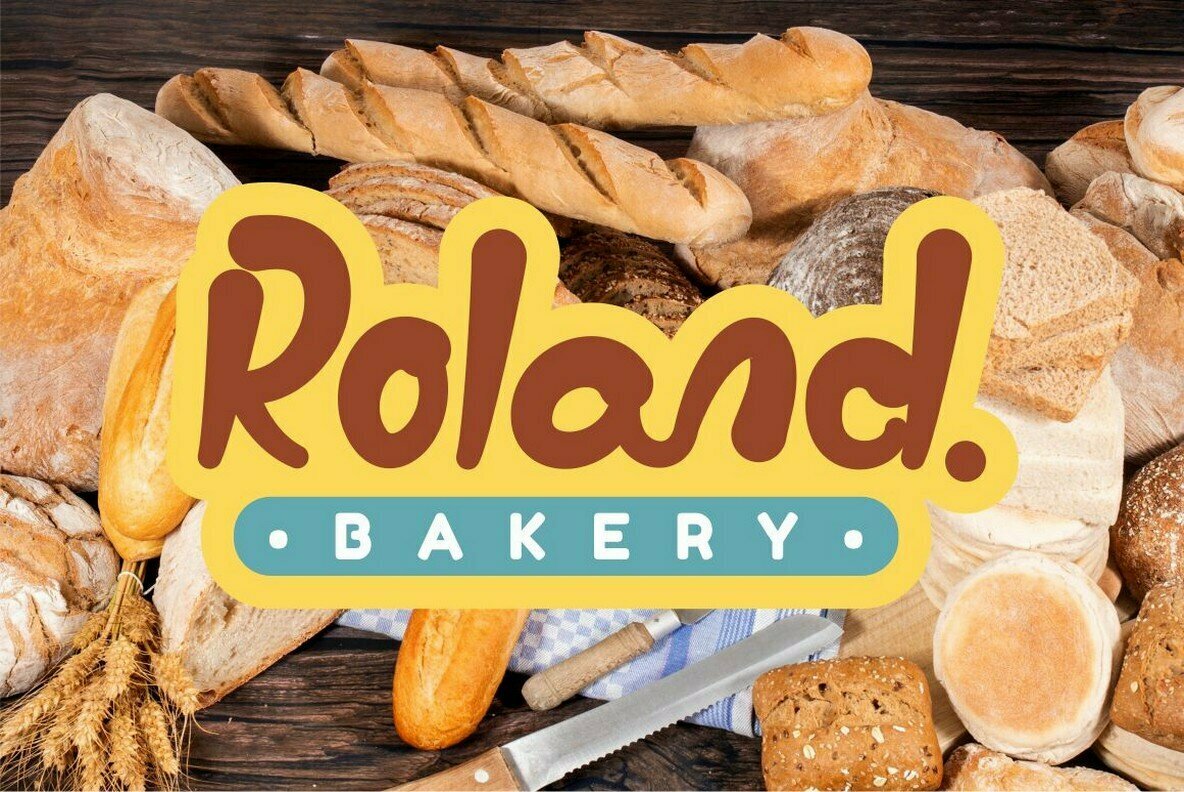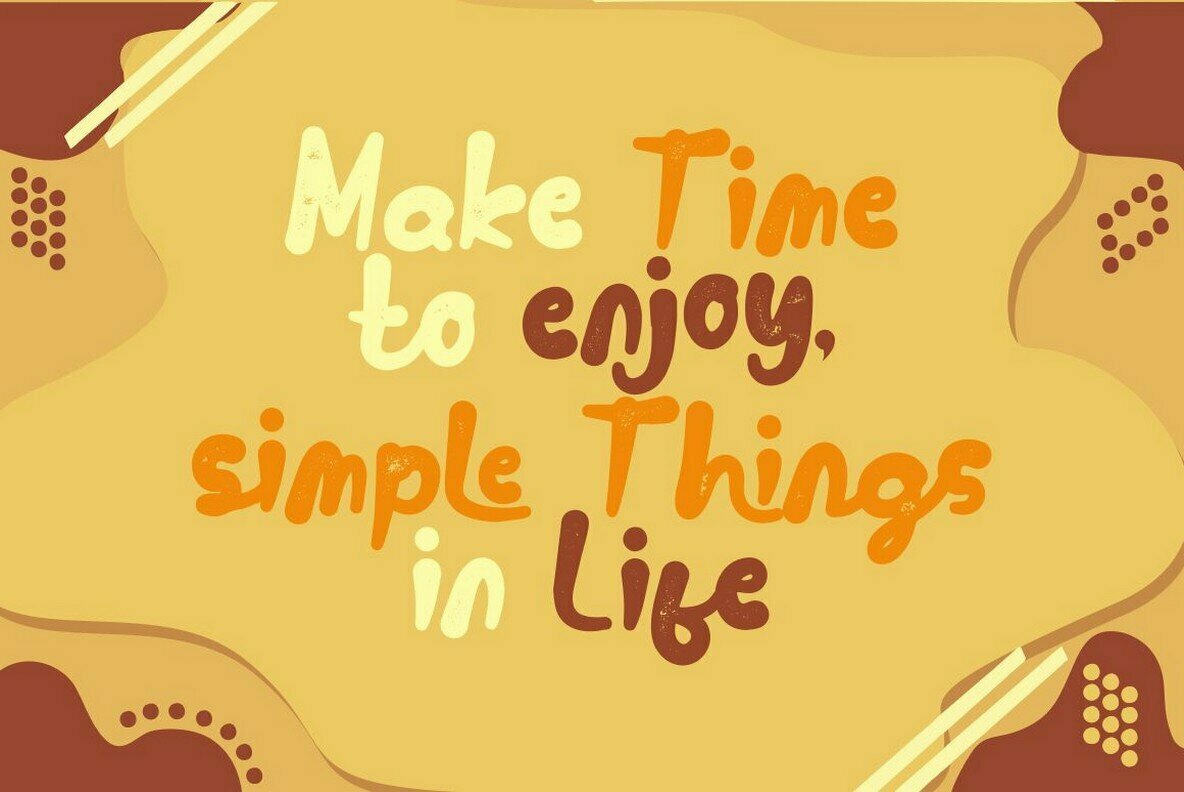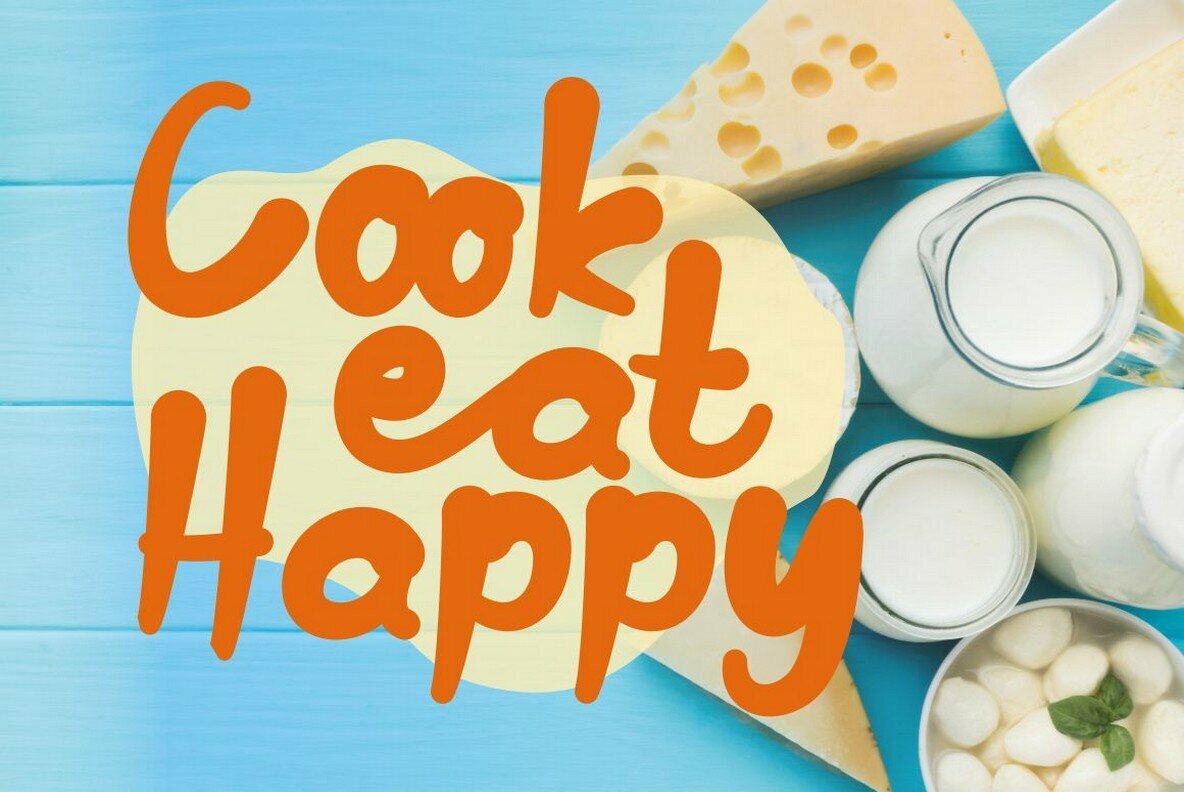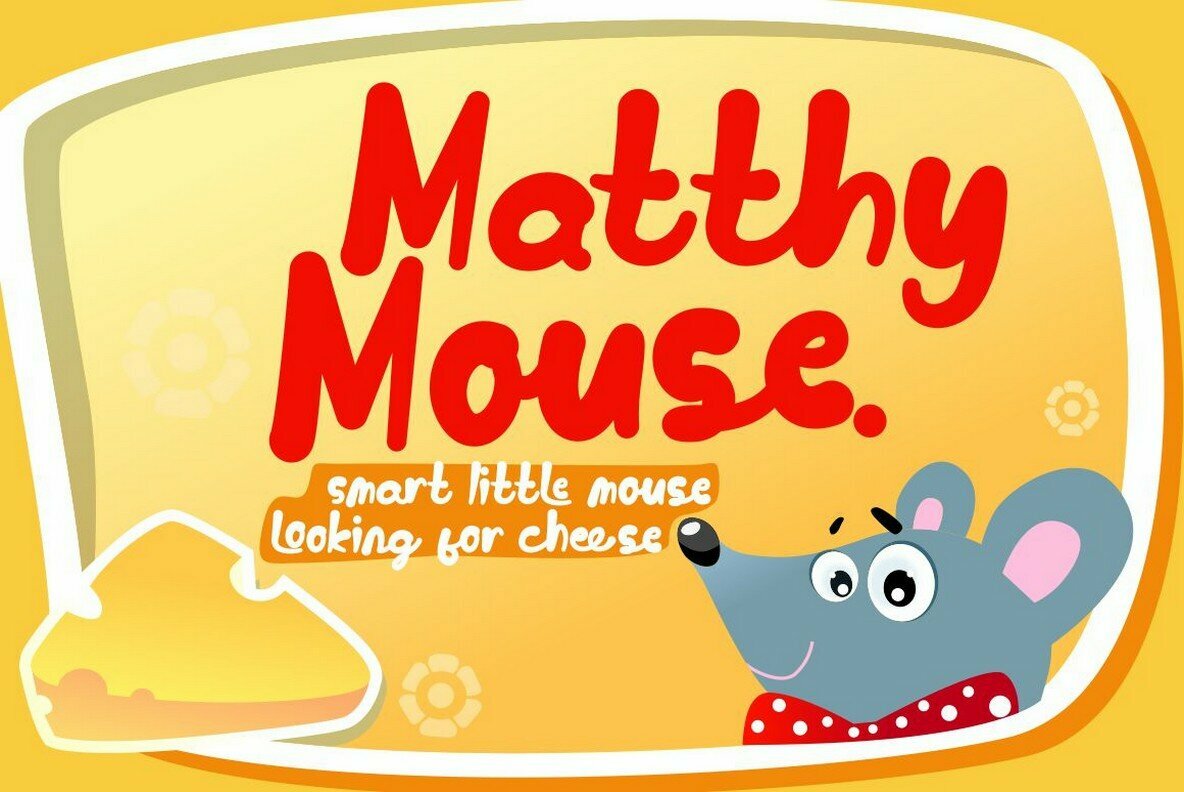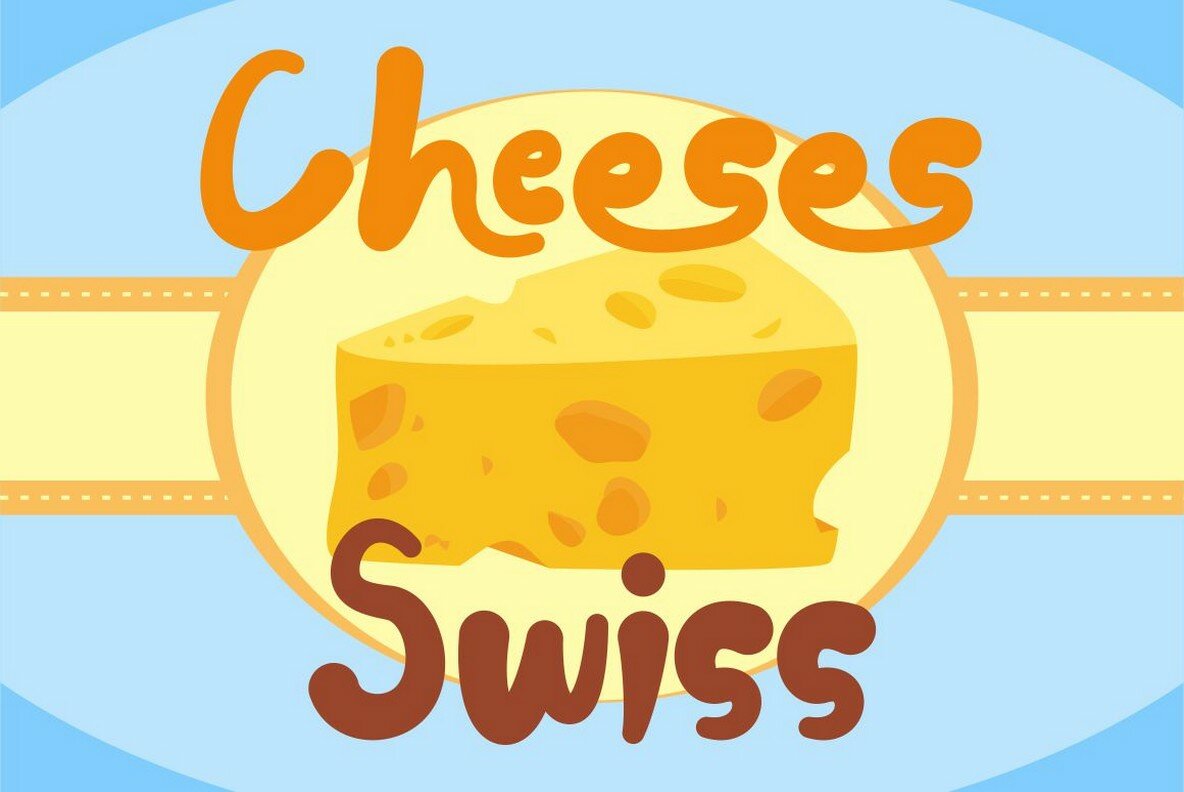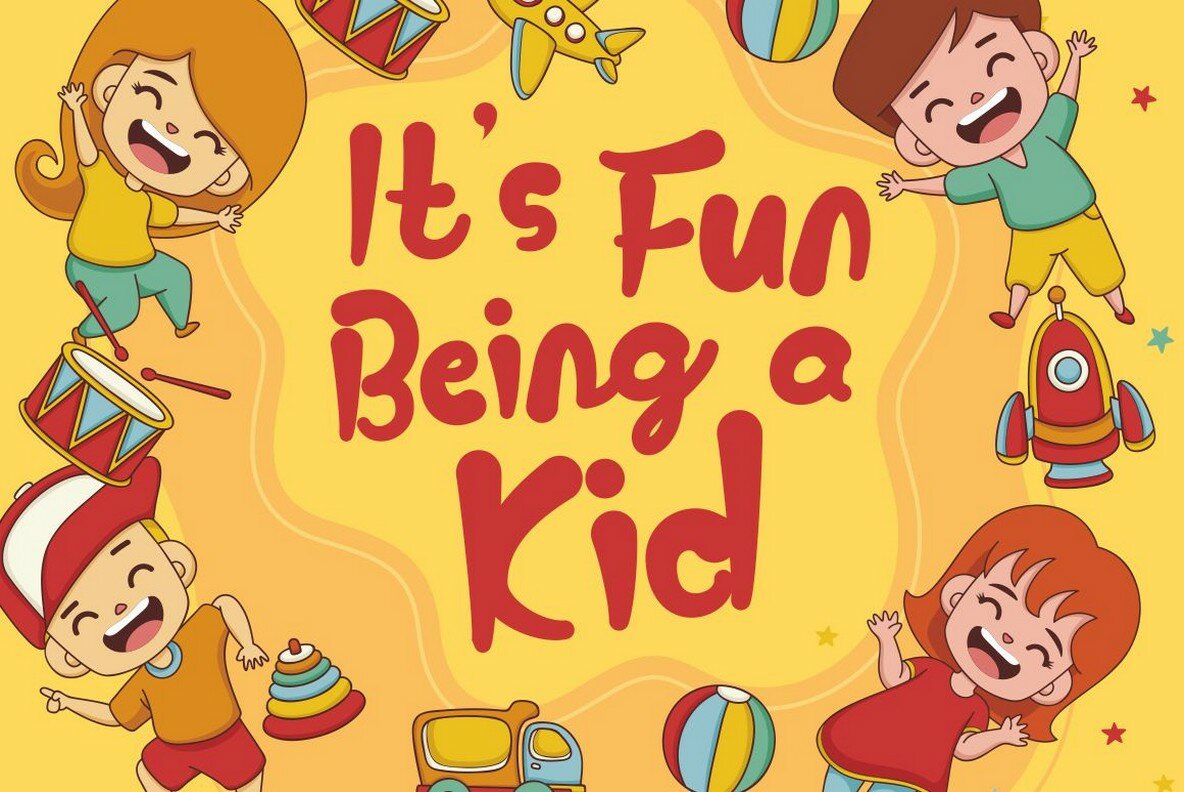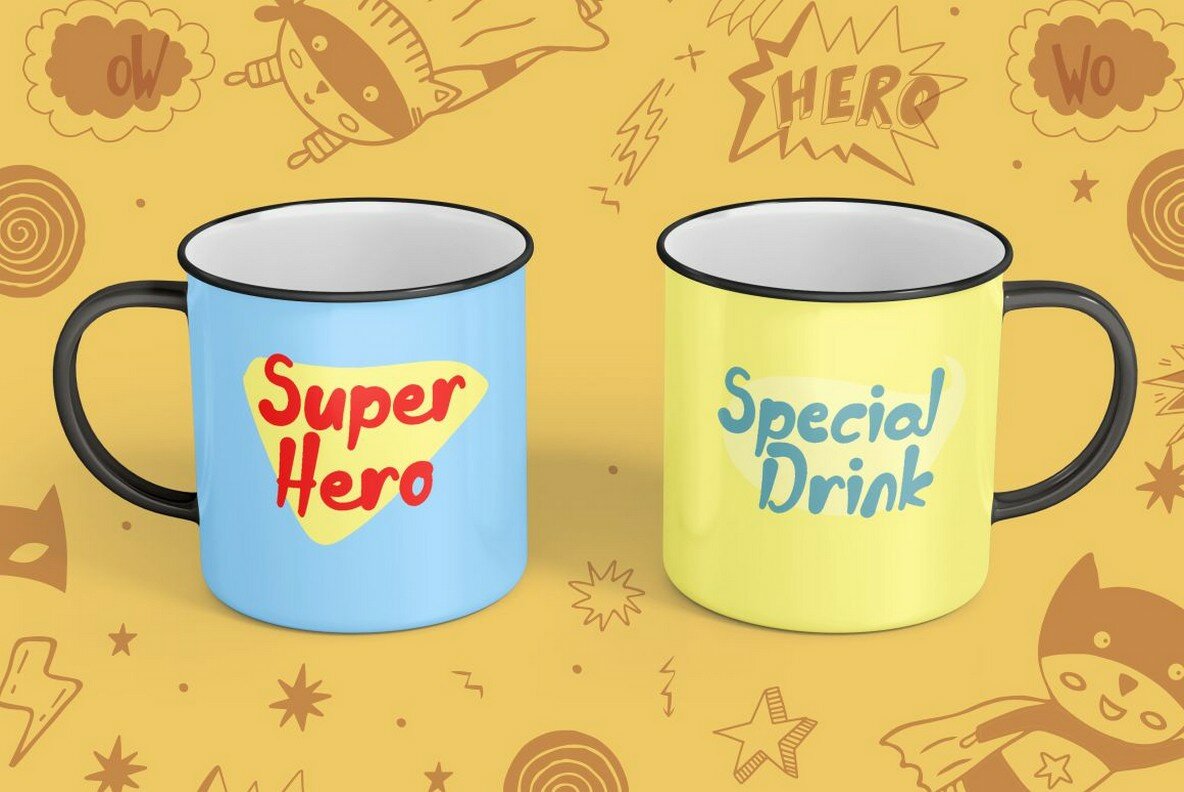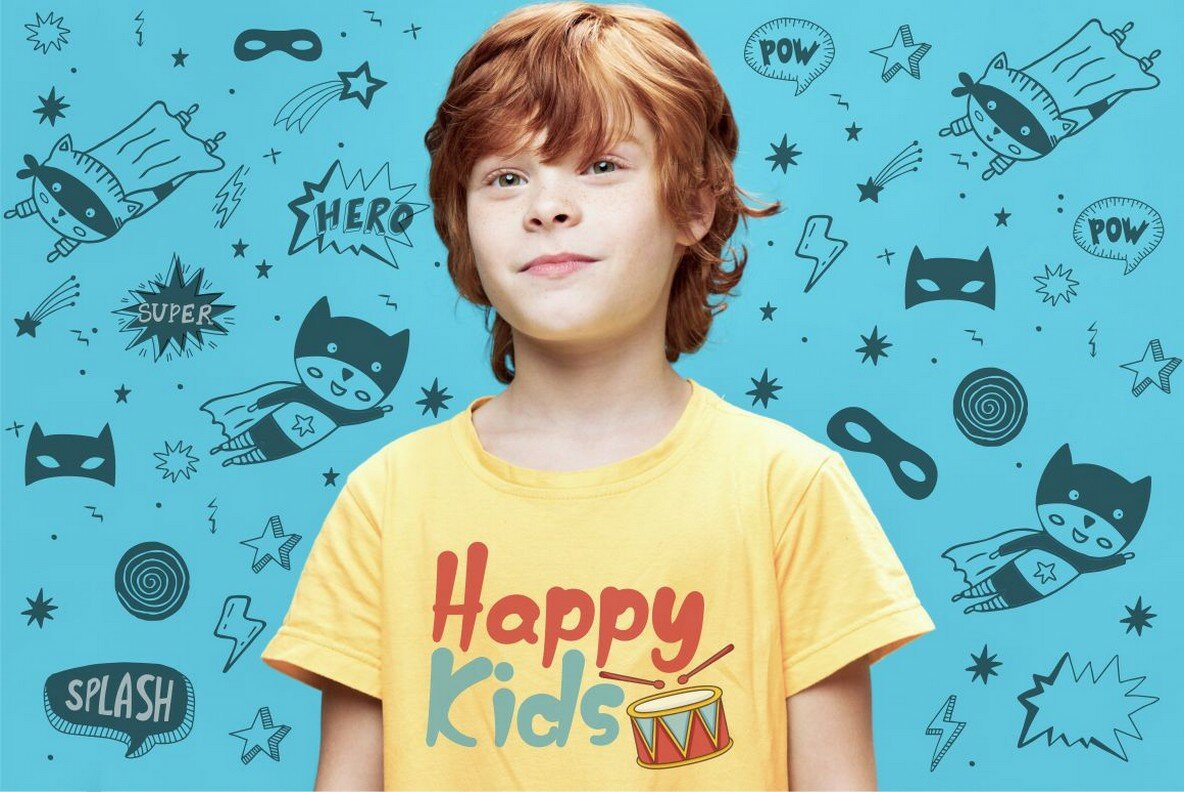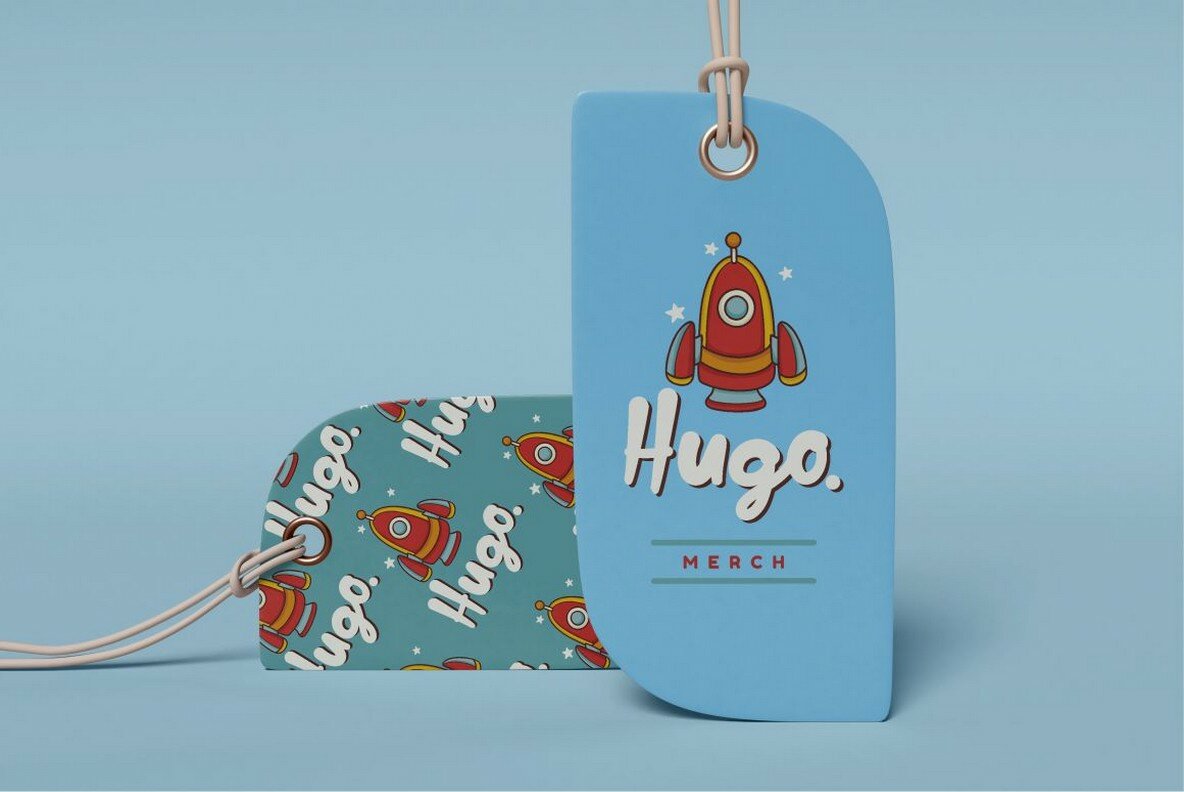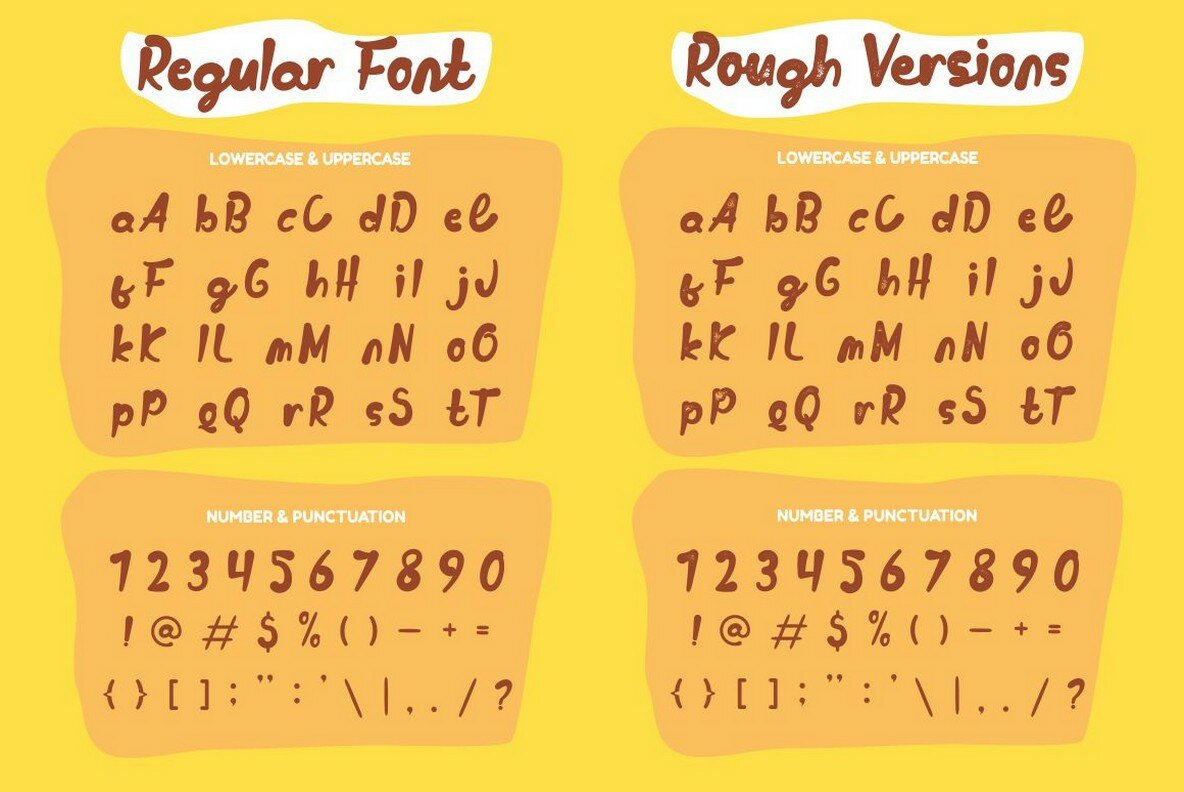
Cheesy Bread Font
Cheesy Bread Regular
Cheesy Bread Rough
Cheesy Bread captures the essence of playfulness in every letter, making it an ideal choice for projects geared towards children. Its bold design injects fun into branding, posters, apparel, and more, ensuring your designs stand out with vibrancy. With two distinct versions—clean and rough—Cheesy Bread offers versatility for your creative explorations. Technical Features:Cheesy Bread: A Playful Bold Font for Creative Projects